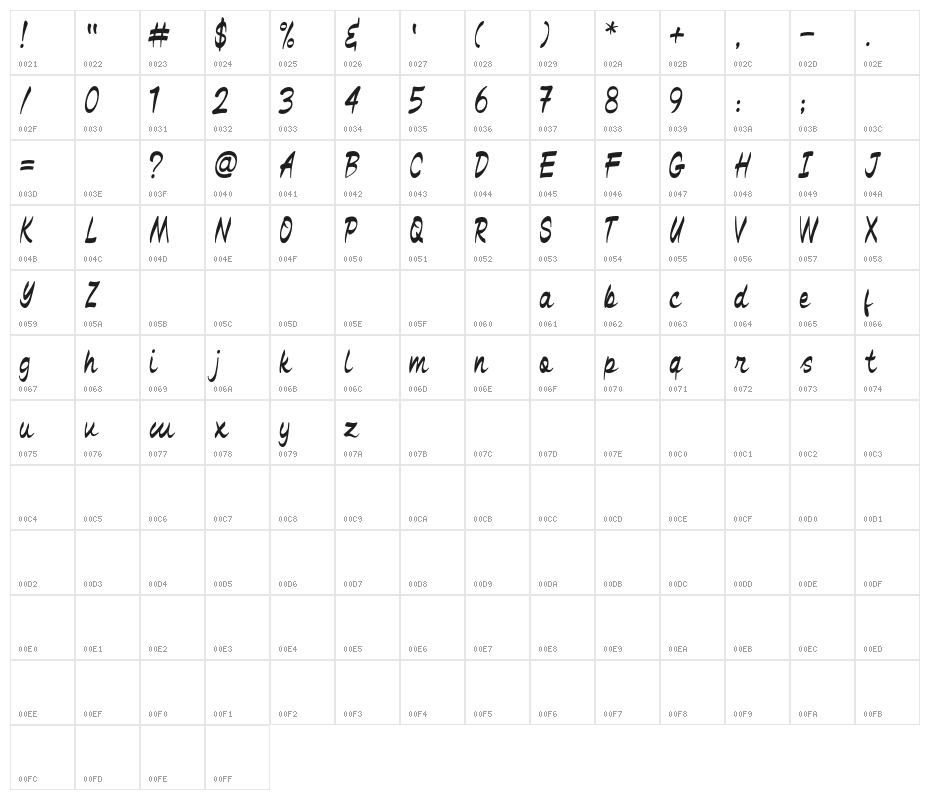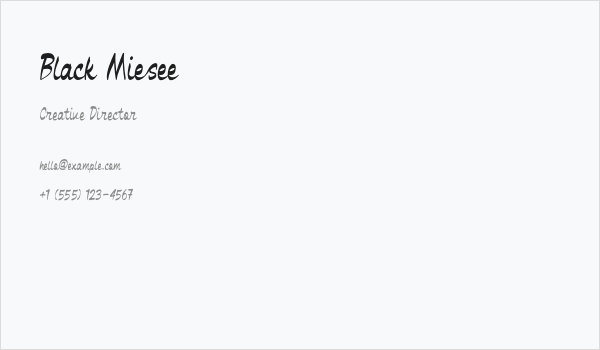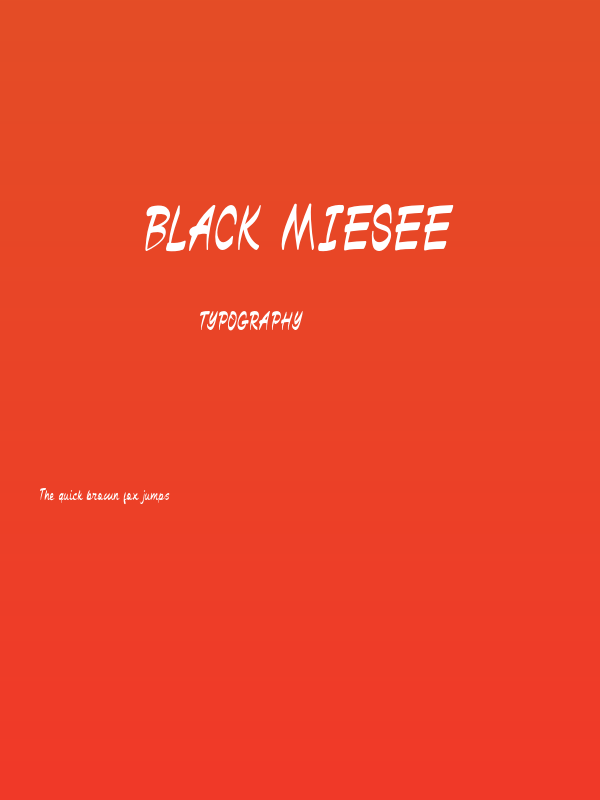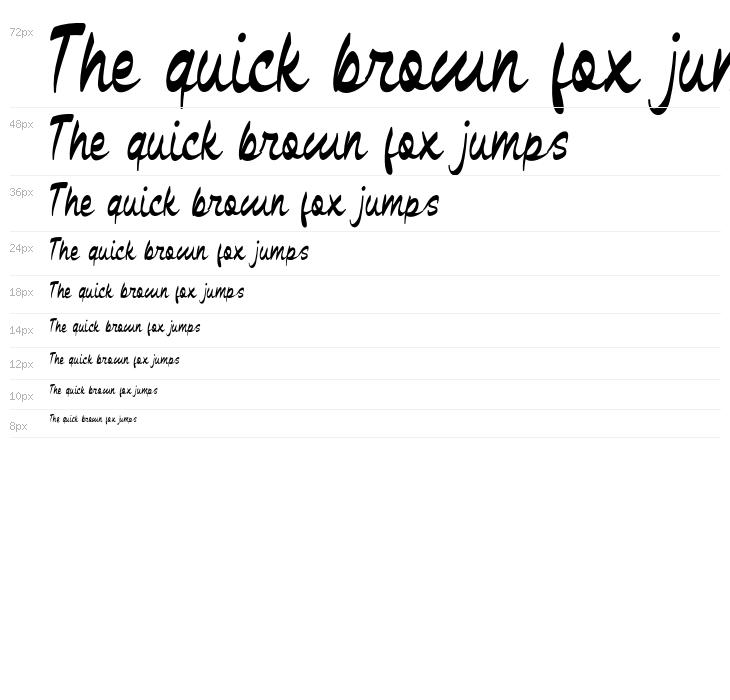
Black Miesee Font
Black Miesee Description
This font features a bold, expressive script style with a dynamic and flowing appearance. The uppercase letters are tall and slightly slanted, giving a sense of movement and energy. The lowercase letters maintain a consistent flow, with smooth curves and connections that enhance readability. Numbers are bold and clear, matching the overall style. Special characters are designed to complement the letters, maintaining the same bold and dynamic feel. This font is ideal for projects that require a strong and impactful visual presence.
| Proposed Projects | Ideal for branding, advertising, posters, and any design that needs a bold, eye-catching script. |